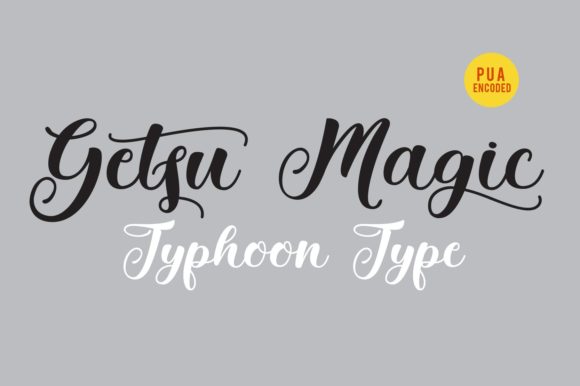
Introducing Getsu Magic Font: A Bold and Beautiful Handwritten Font
Are you tired of using the same old fonts in your designs? Do you want to add a touch of personality and authenticity to your craft? Look no further than Getsu Magic Font, a stunning handwritten font that is sure to take your designs to the next level. With its bold and authentic touch, Getsu Magic is the perfect choice for designers and crafters who want to make a statement.
What is Getsu Magic Font?
Getsu Magic Font is a beautiful and strong handwritten font that is designed to add a touch of elegance and sophistication to your designs. With its bold lines and authentic feel, this font is perfect for a wide range of projects, from branding and advertising to crafting and DIY projects. Whether you’re a professional designer or a crafty hobbyist, Getsu Magic Font is sure to become a favorite in your collection.
Key Features of Getsu Magic Font
So what sets Getsu Magic Font apart from other fonts? Here are just a few of its key features:
- Bold and Authentic Touch: Getsu Magic Font has a bold and authentic touch that is sure to make your designs stand out. Its strong lines and confident feel make it perfect for headlines, titles, and other design elements.
- Beautiful Handwritten Style: Getsu Magic Font is a handwritten font that is designed to look like it was written with a pen or pencil. Its beautiful, flowing lines make it perfect for adding a personal touch to your designs.
- High-Quality Design: Getsu Magic Font is designed to be clear and legible, even at small sizes. Its high-quality design makes it perfect for use in a wide range of projects, from business cards to billboards.
Uses for Getsu Magic Font
So what can you use Getsu Magic Font for? The possibilities are endless! Here are just a few ideas to get you started:
- Branding and Advertising: Getsu Magic Font is perfect for use in branding and advertising projects, such as logos, business cards, and billboards.
- Crafting and DIY Projects: Getsu Magic Font is also great for use in crafting and DIY projects, such as scrapbooking, journaling, and card making.
- Graphic Design: Getsu Magic Font can be used in a wide range of graphic design projects, from brochures and flyers to posters and social media graphics.
Tips for Using Getsu Magic Font
Here are a few tips for using Getsu Magic Font in your designs:
- Use it as a Headline Font: Getsu Magic Font is perfect for use as a headline font, where its bold and authentic touch can really make an impact.
- Pair it with Other Fonts: Getsu Magic Font can be paired with other fonts to create a unique and interesting design. Try pairing it with a sans-serif font for a bold and modern look.
- Experiment with Colors: Getsu Magic Font looks great in a wide range of colors, from bold and bright to soft and pastel. Experiment with different colors to find the one that works best for your design.
In conclusion, Getsu Magic Font is a beautiful and strong handwritten font that is sure to add a touch of personality and authenticity to your designs. With its bold and authentic touch, this font is perfect for designers and crafters who want to make a statement. Whether you’re working on a branding project, a crafting project, or a graphic design project, Getsu Magic Font is sure to be a great choice. So why not give it a try and see the difference it can make?